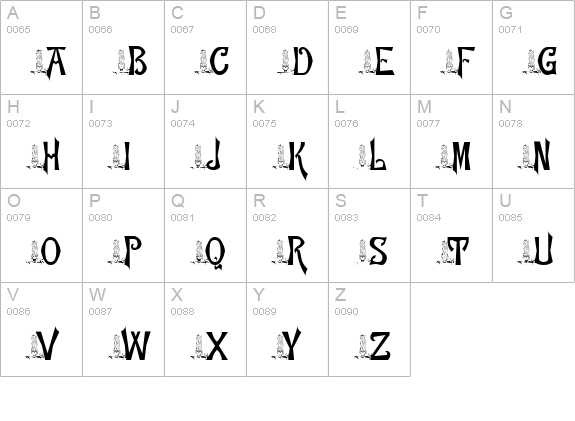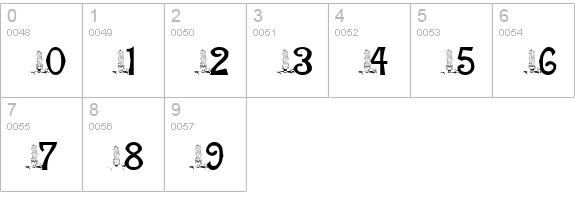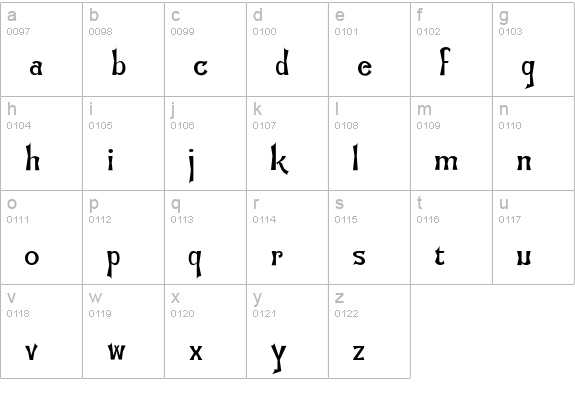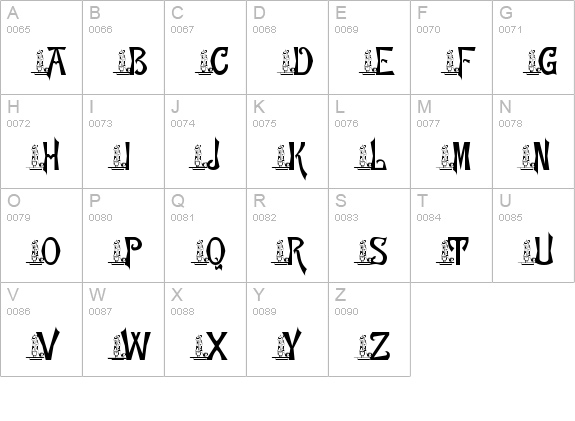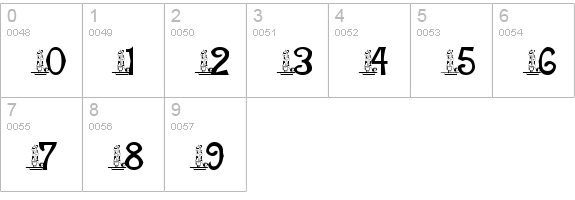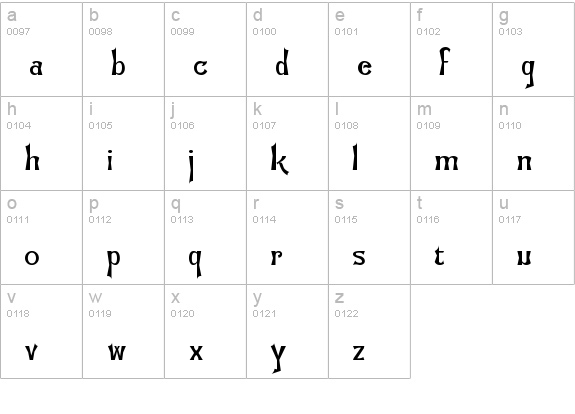
pf_holidays_candle Font Details
Introducing pf_holidays_candle font, a stunning typeface that will ignite your holiday designs with warmth and elegance. This exquisite font captures the flickering glow of a candle, evoking feelings of coziness and joy. With its delicate curves and intricate details, pf_holidays_candle font is perfect for creating eye-catching holiday cards, invitations, and signage. Its versatility allows it to be used in various design projects, from festive party decorations to heartwarming seasonal advertisements. The best part? pf_holidays_candle font is completely free! You can easily download this font at FontsMarket.com, a trusted source for high-quality and unique typefaces. Whether you're a professional designer or a passionate DIY enthusiast, this font is a must-have addition to your collection. The designers behind pf_holidays_candle font have poured their creative energy into crafting a font that captures the essence of the holiday season. The carefully designed characters bring a touch of magic to your projects, allowing you to express the true spirit of celebration and togetherness. From its graceful letterforms to its enchanting ligatures, pf_holidays_candle font effortlessly adds a touch of elegance to any design. Its timeless appeal makes it suitable for both traditional and modern holiday themes, ensuring that your creations stand out from the crowd. Whether you're working on personal or commercial projects, pf_holidays_candle font is the perfect choice. Its generous licensing allows for unlimited usage, giving you the freedom to create without restrictions. So go ahead and let your creativity shine with this beautiful font! Download pf_holidays_candle font today at FontsMarket.com and unlock the endless possibilities it offers. Embrace the holiday spirit and infuse your designs with a touch of magic. Remember, this font is freely available, so don't miss out on the opportunity to elevate your holiday creations to new heights. Happy designing!